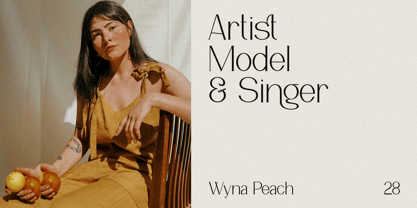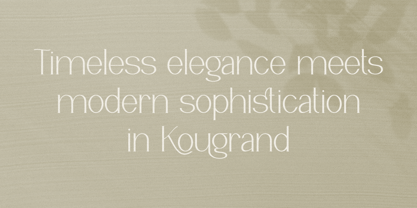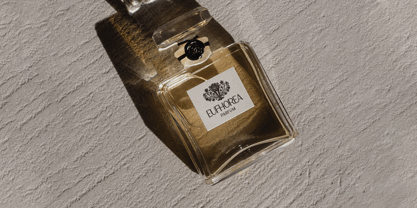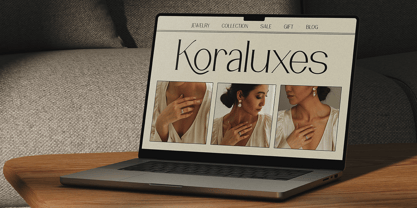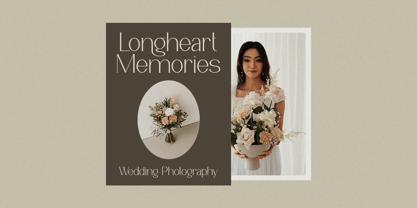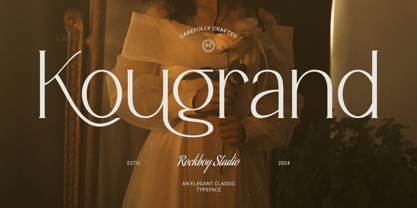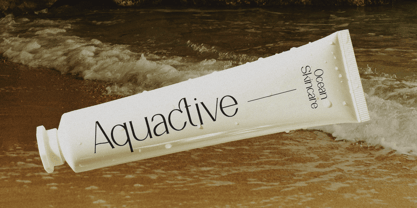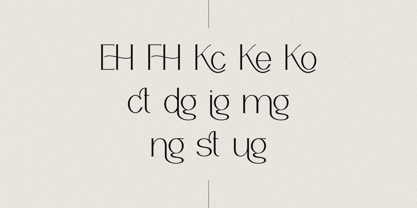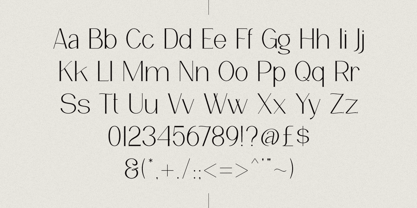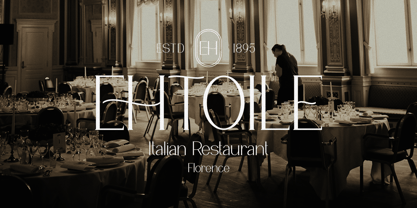
Kougrand
The Kougrand Font Family was designed by Hayinah and published by Rockboys Studio. Kougrand contains 1 styles. More about this family
Kougrand is an elegant, classic serif font characterized by its timeless and refined design. It features high contrast between thick and thin strokes, giving it a sophisticated and luxurious appearance. The font's letterforms are meticulously crafted, with smooth curves, sharp serifs, and graceful proportions that make it ideal for high-end branding, editorial design, and elegant print materials.